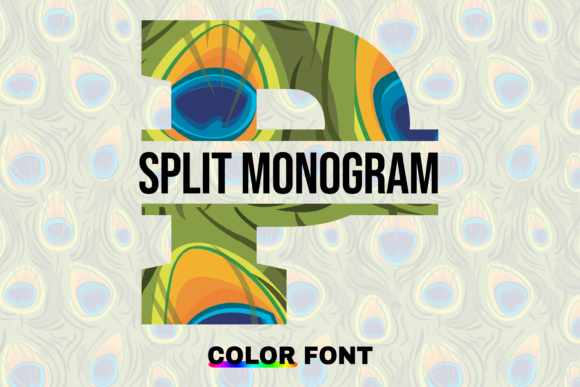
Peacock Split: A Colorful Font for Creative Branding
You know that feeling when you stumble upon a design asset that just clicks? The kind of thing you immediately want to test on three different projects? That’s what happened the first time I encountered Peacock Split. It’s not just another typeface sitting in your font folder—it’s a premium font with personality, built around the delicate beauty of peacock motifs. If you’ve been searching for a creative font that brings charm and sophistication to your work without feeling generic, this one deserves a closer look.
What Makes This Typeface Stand Out
Peacock Split is a color font, specifically an OpenType-SVG format, which means it carries actual color and texture within the glyphs themselves. Instead of flat, single-tone letters, you get letterforms adorned with intricate peacock feather details, rich jewel tones, and a sense of organic movement. This isn’t your typical serif font or sans serif font—it lives in the display font category, designed for moments where you want your typography to make a statement rather than blend into the background.
The visual appeal here comes from its blend of elegance and playfulness. Each character feels carefully crafted, with feather-inspired curves and split designs that give the font its name. It works beautifully when you need something that feels luxurious but approachable, artistic but still readable at the right size. Think of it as the kind of typeface that makes people pause and look twice—exactly the reaction you want when designing a logo, invitation, or social media post.
Real-World Uses That Actually Work
Let’s talk about where Peacock Split genuinely shines, because not every creative font fits every project. This one has specific strengths that align well with certain design goals.
Branding and Logo Design: If you’re building a brand identity for a boutique business, a wellness studio, a floral shop, or a luxury lifestyle brand, this font can serve as the hero element in your logo. Its ornamental quality communicates attention to detail and artistry. Pair it with a clean sans serif font for body text, and you’ve got a brand system that feels cohesive and memorable.
Packaging Design: Product packaging thrives on visual differentiation. Peacock Split works wonderfully for artisan goods, cosmetics, specialty foods, or any product where the packaging itself tells a story. Imagine a tea box label or a candle wrapper using these letterforms—instant shelf appeal.
Invitations and Event Materials: Wedding invitations, gala programs, baby shower cards, milestone birthday announcements—these are moments where a decorative, heartfelt typeface feels exactly right. The peacock motifs add a celebratory, elegant tone without being over the top.
Social Media Graphics: In a feed full of Canva templates and recycled fonts, something like Peacock Split helps your content stand out. Use it for quote graphics, sale announcements, Instagram story headers, or Pinterest pins where you need that scroll-stopping quality. Just keep in mind that display fonts like this work best at larger sizes, so reserve it for headlines and focal text rather than captions.
Editorial Layouts and Blog Design: If you’re designing a magazine spread, a blog header, or a digital lookbook, this typeface can anchor your visual storytelling. It pairs nicely with modern typography in body copy—think a clean serif font or a simple sans serif for paragraphs, letting Peacock Split own the headlines.
Merchandise and Print Materials: Tote bags, stickers, posters, greeting cards, art prints—merchandise benefits from bold, distinctive design assets. This font brings enough visual interest to work as a standalone design element or alongside illustrations.
Making It Work for Your Brand
Here’s the honest truth about display fonts: they’re powerful tools, but they require thoughtful application. Peacock Split isn’t the typeface you’d use for an entire paragraph of body copy, and that’s perfectly fine. Its strength lies in strategic placement—headers, logos, pull quotes, feature titles.
One of the biggest mistakes I see in design is choosing a font because it looks beautiful in isolation, without considering how it serves the project’s goals. Before incorporating this typeface, ask yourself what emotion you want to evoke. If the answer involves elegance, creativity, nature-inspired beauty, or artisanal quality, you’re in the right territory.
Font pairing is where many projects succeed or fall apart. Peacock Split plays well with restrained companions. A geometric sans serif font like Montserrat or a classic serif font like Playfair Display can balance its ornamental energy. Test your pairings at actual sizes—what looks balanced on a 27-inch monitor might feel cramped on a business card or overwhelming on a mobile screen.
Readability always matters, even with decorative fonts. Use Peacock Split at sizes where its details remain clear and legible. For print materials, this typically means 24pt and above. For digital applications, test across devices and screen sizes. If the feather details blur together at smaller scales, that’s your cue to bump up the size or switch to a simpler companion font for that particular element.
Important Technical Details
Because Peacock Split is an OpenType-SVG color font, it has specific compatibility requirements worth understanding before you purchase. It works with Adobe Photoshop, Adobe Illustrator, Silhouette Studio, and Inkscape. These applications support the color font technology that makes those vibrant peacock details possible.
The OTF and TTF files included are not compatible with Cricut machines, which is a significant consideration if you’re a crafter who relies on that platform. If Cricut is your primary tool, you’ll want to explore alternatives or use this font within a compatible application and then export your designs as images for cutting.
For anyone new to color fonts or unsure about setup, checking out a comprehensive font guide can save you troubleshooting time. Understanding how OpenType-SVG fonts behave differently from standard fonts helps you get the most out of the product without frustration.
Choosing the Right Moment for a Creative Font
Not every project calls for a typeface with this much character, and recognizing that distinction is part of developing good design instincts. Peacock Split is ideal when your project needs a focal point—when typography itself becomes part of the visual narrative. It’s less suited for corporate reports, legal documents, or any context where neutrality and maximum readability at small sizes are priorities.
Think about your audience, too. If you’re designing for a brand whose customers appreciate artistry, craftsmanship, and visual beauty, this font speaks their language. A children’s party planner, a botanical illustrator, a jewelry designer, a boutique hotel—these are the kinds of brands where Peacock Split feels authentic rather than forced.
Commercial licensing is another practical consideration. If you’re using this font for client work, merchandise you plan to sell, or business branding, make sure you understand the licensing terms. Most premium fonts come with clear guidelines about commercial use, and respecting those terms protects both you and the font designer.
At the end of the day, the best design assets are the ones that solve real problems and unlock creative possibilities. Peacock Split offers something genuinely different in a market full of interchangeable options. Whether you’re refreshing a brand identity, designing a product line, or creating marketing materials that need to feel special, it’s a typeface worth exploring—and one that might just become a go-to in your design toolkit.